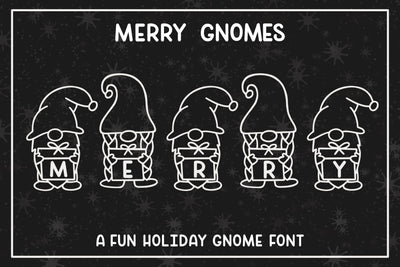
Merry Gnomes - A fun holiday gnome font
I had so much fun designing Merry Gnomes!!! It's a fun hand drawn font with male and female gnomes holding gift boxes. Merry Gnomes is perfect for Christmas projects, but also birthday and any other gift giving holidays where a gift box would be appropriate. You can use the letters as provided and also use the blank gift boxes with an alternate font if you wish.
Merry Gnomes includes:
26 Male Gnomes A-Z - Uppercase Keys
26 Female Gnomes A-Z - Lowercase Keys
10 Male Number Gnomes (0-9) - Number Keys
10 Female Number Gnomes (0-9) Use the punctuation above the numbers for female gnomes with numbers.
1 Male Gnome with blank gift box - [ key
1 Female Gnome with blank gift box - ] key